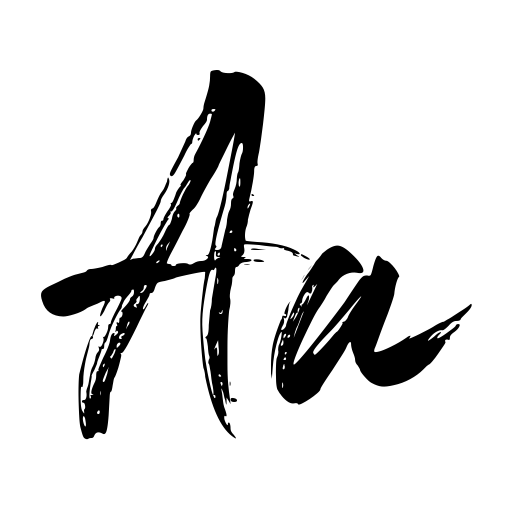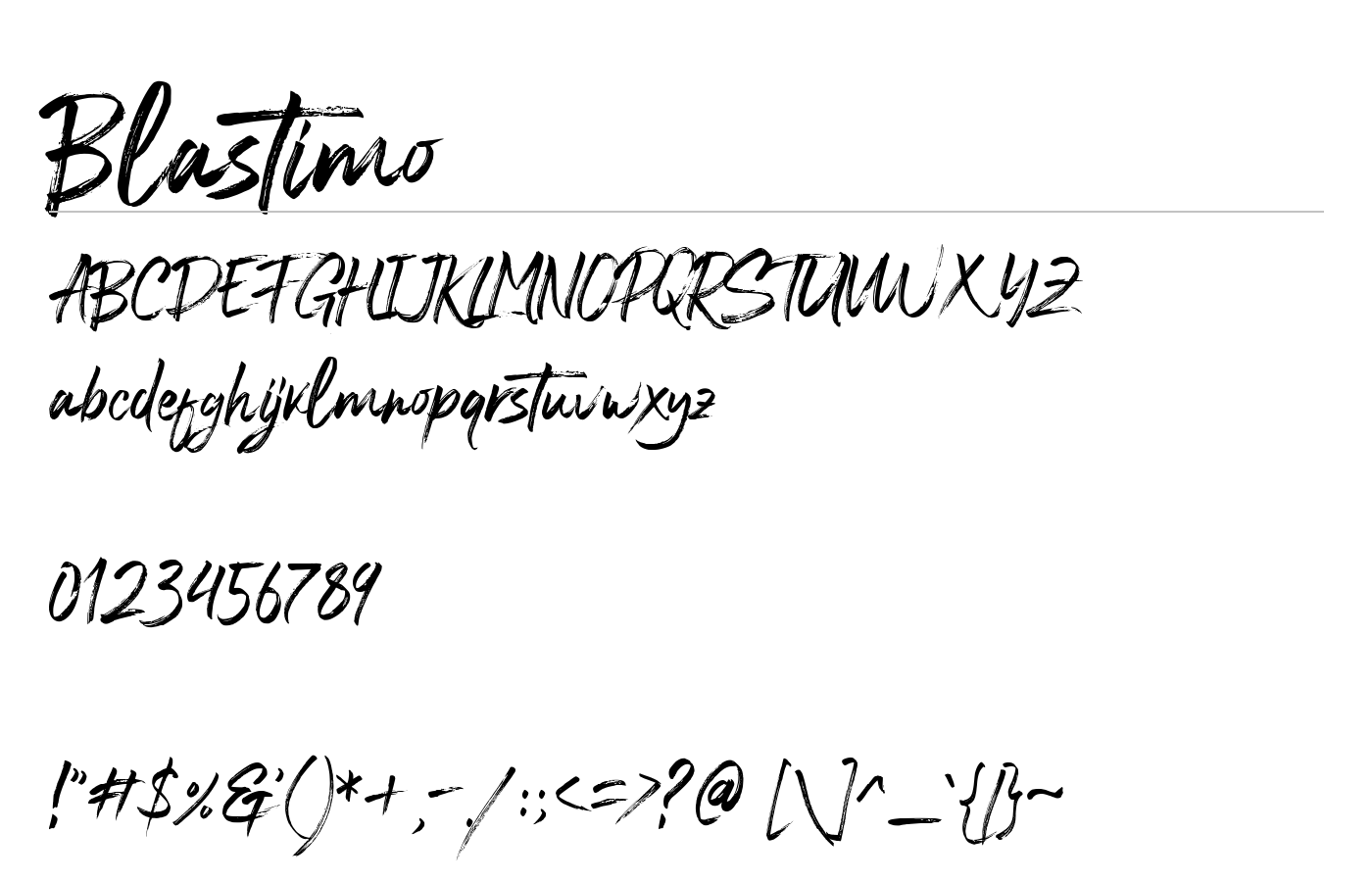
Blastimo is a bold and dynamic brush script font with a lively, hand-painted feel characterized by rough, textured strokes and high contrast between thick and thin lines. Its casual yet energetic style makes it perfect for adding a creative, expressive touch to branding, posters, and social media graphics where a personal, artistic vibe is desired. This font stands out in headlines and display uses, offering a unique and striking personality that grabs attention with its spontaneous, handcrafted look.
Blastimo Font
About Blastimo Font